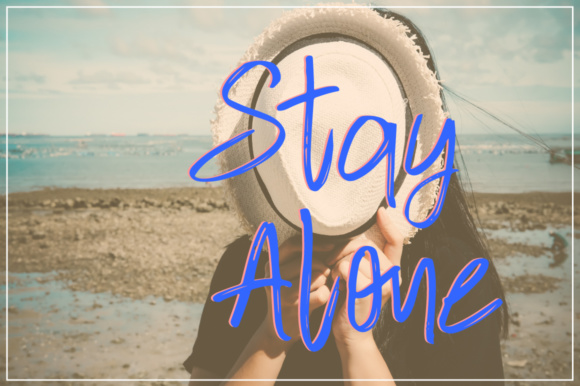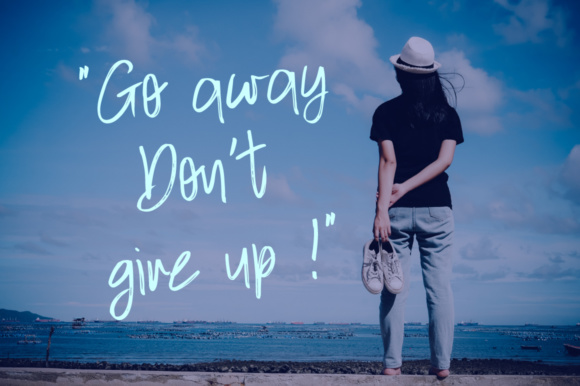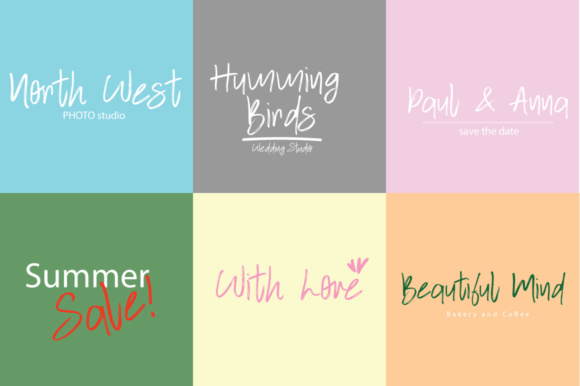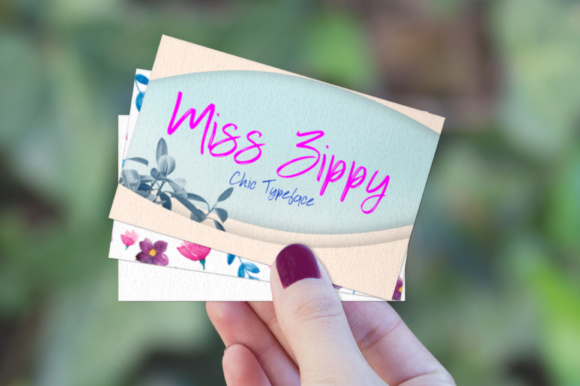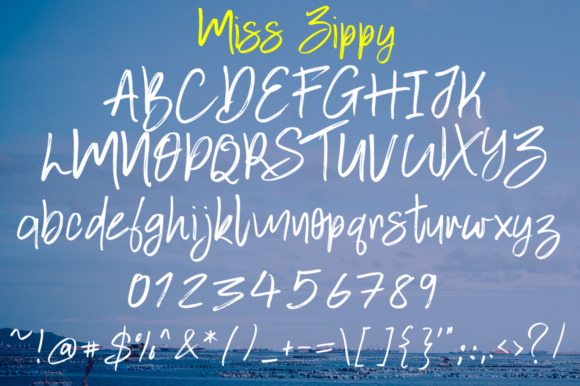
HomeScript FontsMiss Zippy Font Script Fonts Miss Zippy Font FacebookXPinterestWhatsApp Miss Zippy Font Poster 2 Miss Zippy Font Poster 3 Miss Zippy Font Poster 4 Miss Zippy Font Poster 5 Miss Zippy Font Poster 6 Miss Zippy Font Poster 7 About Miss Zippy Font The Miss Zippy is an amazing handwritten font. It’s perfect for wedding invitations, blogs, logos, and much more! DOWNLOAD NOW People also explored Human Font Bubbles Christmas Font Mangogirl Font Qemaren Font Syarena Font Thought Grassias Font Ghost Font Pretty Girl Font 446 0 TagsMiss Zippy Font Previous articleSunshine Lollipop FontNext articleQuiche Font LEAVE A REPLY Cancel reply Comment: Please enter your comment! Name:* Please enter your name here Email:* You have entered an incorrect email address! Please enter your email address here Website: Save my name, email, and website in this browser for the next time I comment. Personal Use Free Barokah Personal Use Free Read more about this font Budmo Personal Use Free Read more about this font Coffete Personal Use Free Read more about this font Black Friday Personal Use Free Read more about this font BLOG Free Fonts Risk: Why Free Fonts Can Be Dangerous for Designers Free Fonts Risk: Why Free Fonts Can Be Dangerous for Designers Using free fonts is a common practice in web and graphic design. However, the... 5 Fonts That Will Dominate Design Trends in 2026 Exploring Font Trends How to Install and Use Fonts on Windows, macOS, and Web Projects